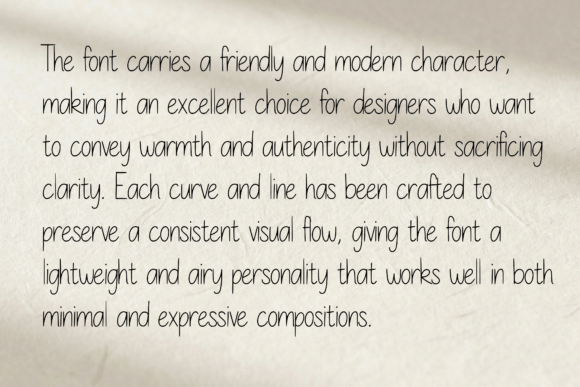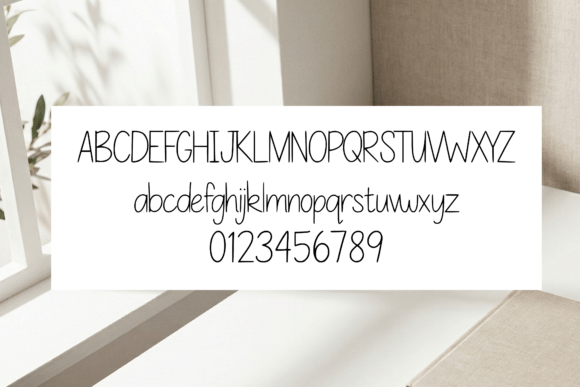
Discover the Elegance of Hand Tulis Letter Gedrik Font
In the world of typography, few fonts manage to strike a balance between elegance and approachability. Hand Tulis Letter Gedrik is one such font that has captured the hearts of designers and crafters alike with its unique blend of natural, effortless, and personal feel. This thin, handwritten display font is designed to bring a touch of warmth and authenticity to any design project, making it an excellent choice for those looking to convey a sense of friendliness and modernity.
The Characteristics of Hand Tulis Letter Gedrik
Hand Tulis Letter Gedrik boasts clean, elongated strokes that create a smooth rhythm, reminiscent of casual handwriting. This feature allows the font to maintain high readability across a variety of sizes, making it versatile for use in multiple design applications. The font’s friendly and modern character is a result of its carefully crafted curves and lines, which have been designed to preserve a consistent visual flow. This gives Hand Tulis Letter Gedrik a lightweight and airy personality, perfect for both minimal and expressive compositions.
One of the standout features of Hand Tulis Letter Gedrik is its adaptability. Its simple construction allows it to blend seamlessly into a wide range of design projects, including branding, packaging, editorial layouts, and social media graphics. Whether you’re working on a lifestyle design, creating quotes, designing stationery, journaling templates, or crafting creative product displays, Hand Tulis Letter Gedrik excels in delivering a soft, approachable aesthetic.
Why Choose Hand Tulis Letter Gedrik?
For designers and crafters looking for a font that combines clarity with a personal touch, Hand Tulis Letter Gedrik is an excellent choice. Its smooth, monoline appearance adapts beautifully to various design needs, ensuring that your work stands out with a unique elegance. Here are a few reasons why Hand Tulis Letter Gedrik should be at the top of your font considerations:
- Natural and Effortless Feel: The font’s design mimics natural handwriting, providing a personal and relatable vibe to your designs.
- High Readability: Its clean and elongated strokes ensure that your message is conveyed clearly, regardless of the size.
- Versatility: From minimal to expressive designs, Hand Tulis Letter Gedrik adapts seamlessly, making it suitable for a wide range of projects.
- Friendliness and Modernity: The font carries a friendly and modern character, perfect for designers aiming to convey warmth and authenticity.
Application Ideas for Hand Tulis Letter Gedrik
The potential applications for Hand Tulis Letter Gedrik are vast. Here are some ideas to get you started:
- Lifestyle Designs: Use Hand Tulis Letter Gedrik to add a personal touch to lifestyle blogs, magazines, or advertisements, bringing a sense of approachability and warmth.
- Quotes and Inspirational Content: The font’s elegant and clear appearance makes it perfect for displaying quotes, mantras, or inspirational messages in a visually appealing way.
- Stationery and Journaling: Add a touch of elegance to your stationery, journals, or planners with Hand Tulis Letter Gedrik, making them perfect for personal use or as gifts.
- Branding and Packaging: For brands looking to convey a sense of friendliness and approachability, Hand Tulis Letter Gedrik can be a valuable asset in creating a cohesive and inviting brand image.
| Font Name | Hand Tulis Letter Gedrik Font |
| Author | Font Seven |
Hand Tulis Letter Gedrik is more than just a font; it’s a design tool that can elevate your projects with its unique blend of elegance, friendliness, and versatility. Whether you’re a designer, crafter, or simply someone who appreciates the beauty of typography, Hand Tulis Letter Gedrik offers a world of creative possibilities. Its ability to convey warmth and authenticity without sacrificing clarity makes it an invaluable asset in your design arsenal. So, why settle for ordinary when you can add a touch of elegance and personality to your work with Hand Tulis Letter Gedrik?